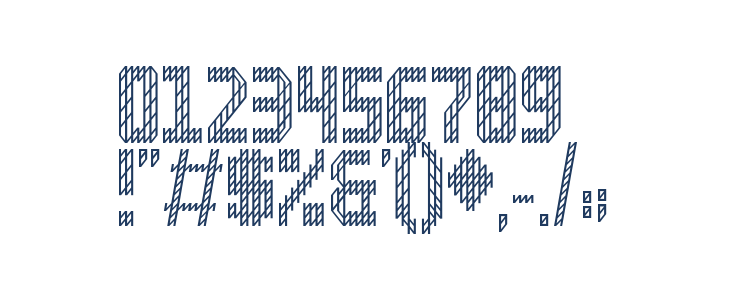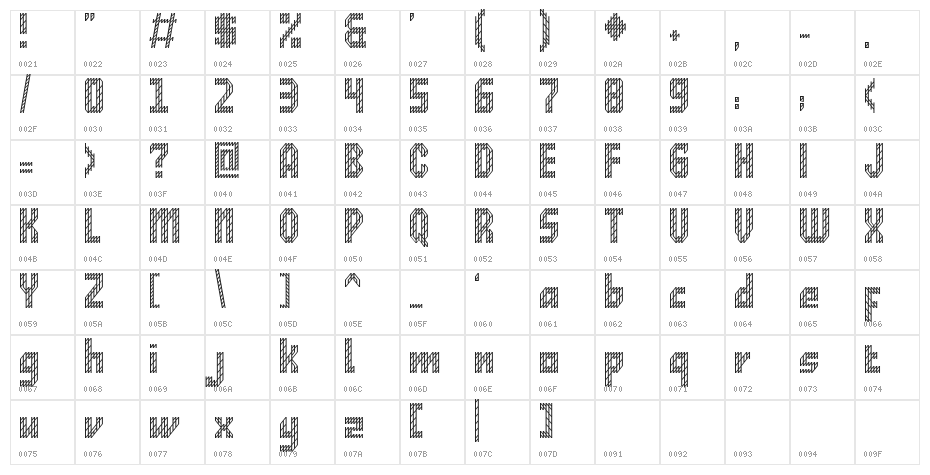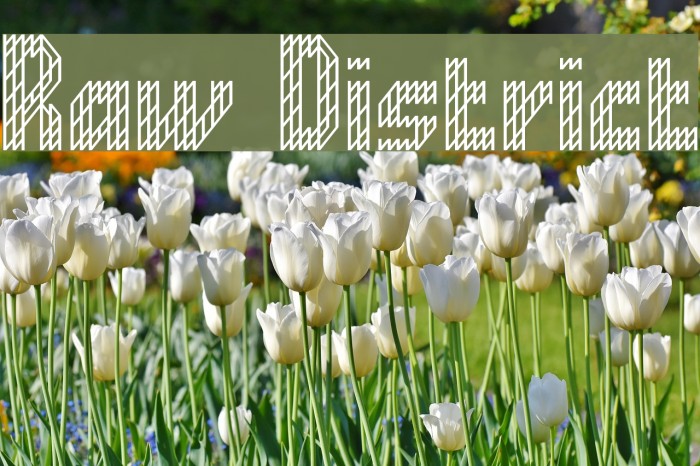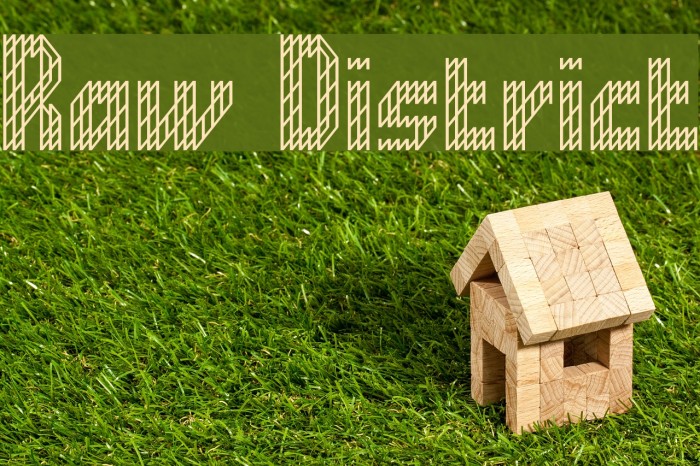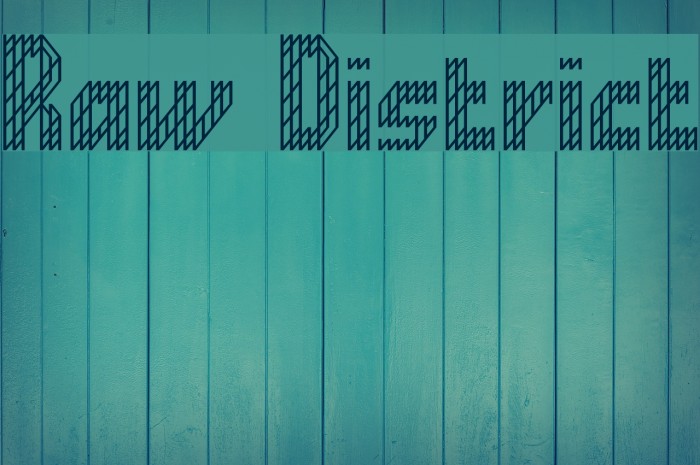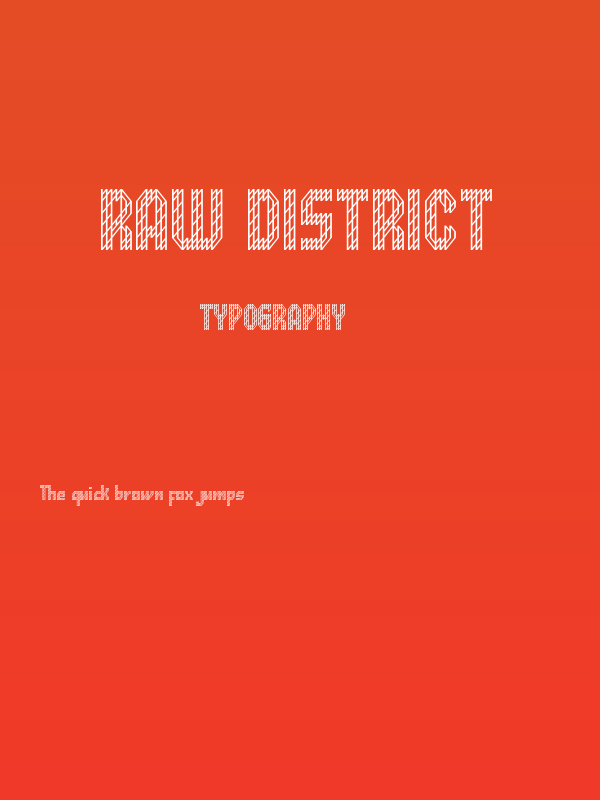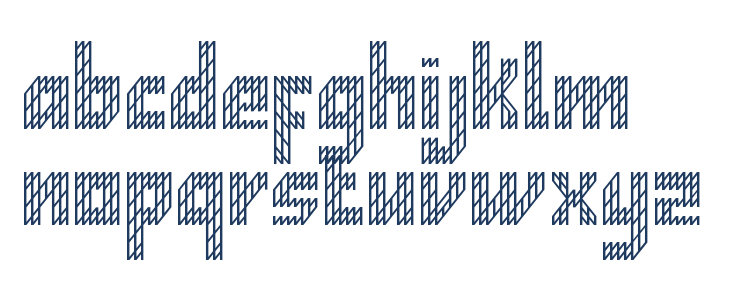
Raw District Font
Raw District Description
This font features a unique, decorative style characterized by diagonal lines creating a textured, striped appearance within each character. The uppercase and lowercase letters maintain a consistent geometric form, giving the font a structured yet playful look. The numbers and special characters follow the same design, ensuring uniformity across all glyphs. The font's distinct pattern makes it stand out, ideal for projects that require a bold and eye-catching typeface. Its design is reminiscent of industrial or urban themes, making it suitable for modern and edgy applications.
| Proposed Projects | Ideal for branding, posters, album covers, and any design needing a striking, modern aesthetic. |